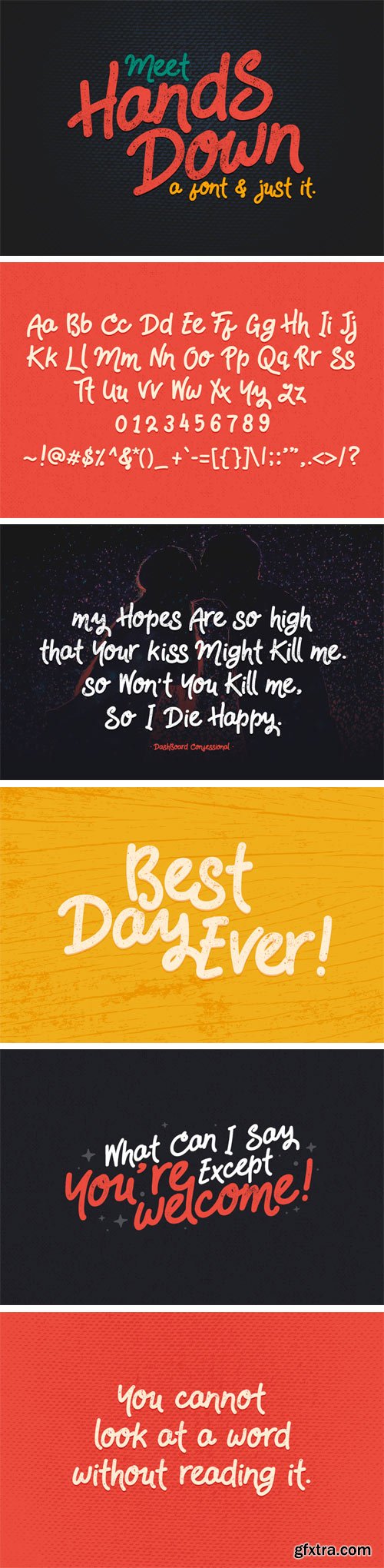
Hands Down Font
Introducing Hands Down. It is designed by weirdstore. It's so simple, it even has no alternates or ligatures. But already support for multilanguage characters. Just try it, you'll love it. It's awesome for packaging, merchandise, posters, invitations, sign making, magazines, creative websites...